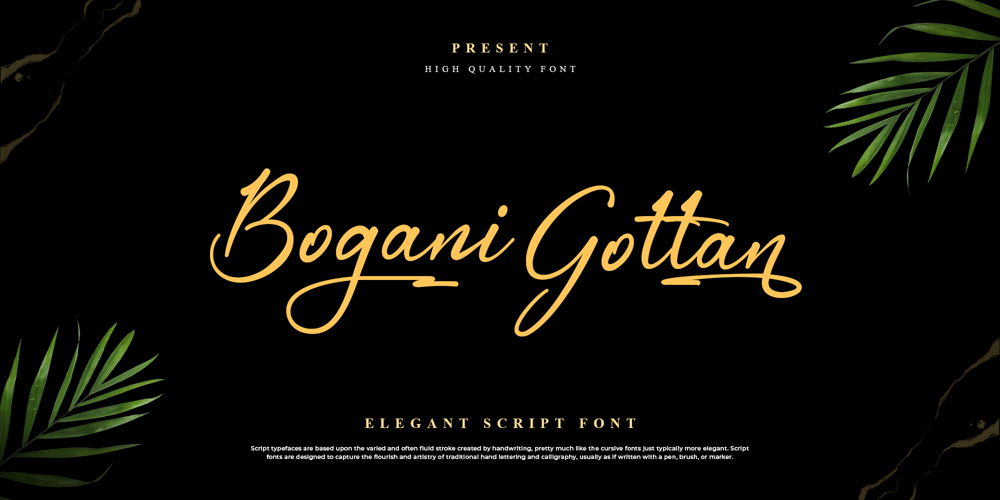
Bogani Gottan Font Family was designed by Wahyudi Mokoagow and published by Yeen Studio. Bogani Gottan contains 1 styles and family package options. Introducing Bogani GottanThis Font can be used for any variety of purposes, such as: Photography, Wedding Invitation, Packaging Product, Logo Type, Brand, and also can be used for personal purpose.This Font Template contains Modern, Elegant, creative, Professional and Unique Concept.FEATURES- Uppercase & Lowercase letters- Numbering and Punctuations- Ligatures- Multilingual Support- Works on PC or Mac- Simple Installation- Support Adobe Illustrator, Adobe Photoshop, Adobe InDesign, also works on Microsoft Word.All images on the demo is just for preview purpose only and not actually included on the filesHope you Like it.Thanks.